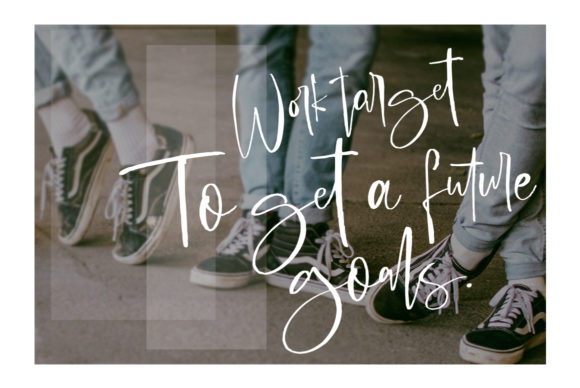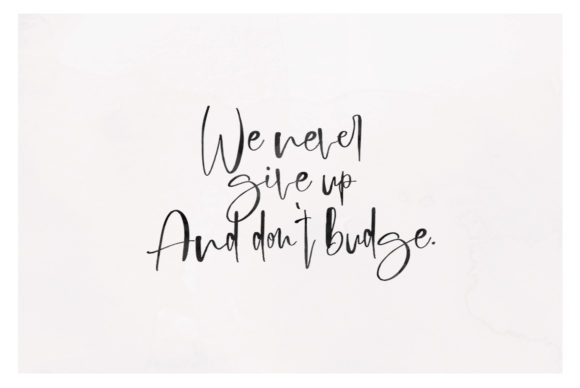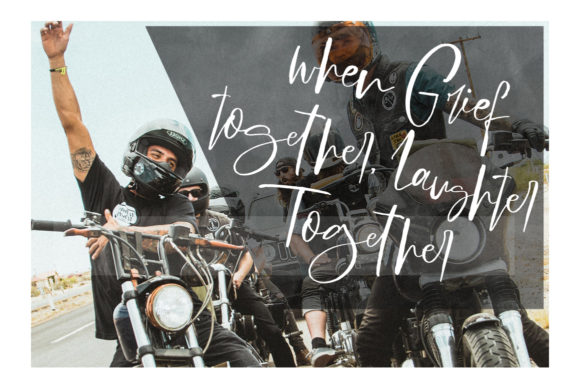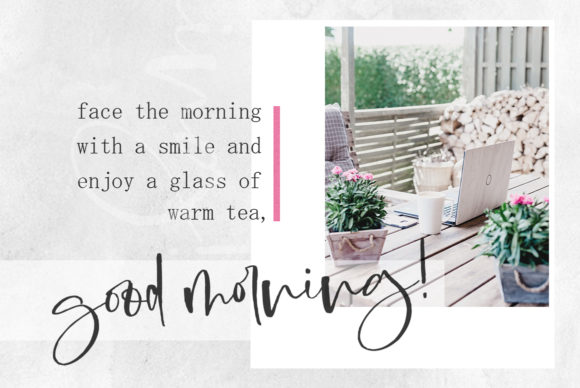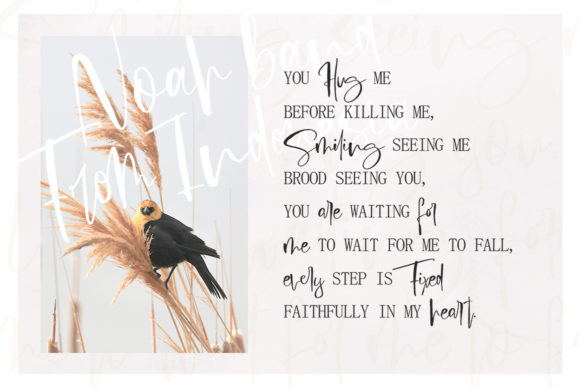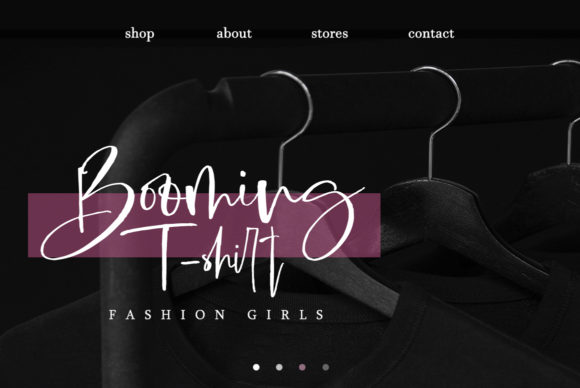
Introduction to Pierogies Script Font Font
Fonts play a crucial role in design, and the Pierogies Script Font font is a typeface that brings both character and versatility to any project. Whether you’re working on a branding project, a website, or a print design, the Pierogies Script Font font offers a unique style that can elevate your work.
The Pierogies is a beautiful signature font.
It has a luxurious style and is perfect for every design which needs to look upscale and chic .
Key Features of Pierogies Script Font Font
Why Choose Pierogies Script Font Font?
The Pierogies Script Font font is more than just a typeface – it’s a design tool that helps you communicate your message with style and clarity. Its unique character set and versatile design make it suitable for a wide range of applications, from elegant invitations to bold headlines.
With its carefully crafted letterforms and balanced proportions, the Pierogies Script Font font ensures readability and visual appeal across all mediums.
What makes Pierogies Script Font font special?
The Pierogies Script Font font stands out with its unique design, exceptional readability, and versatility across various design applications.